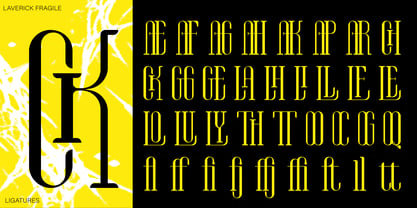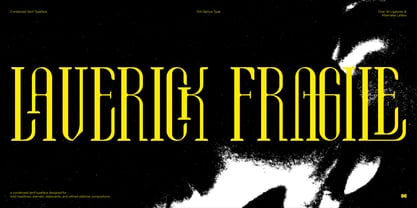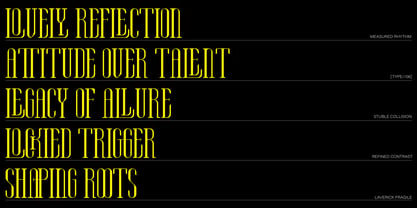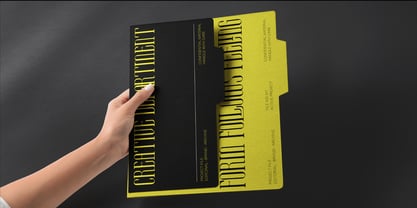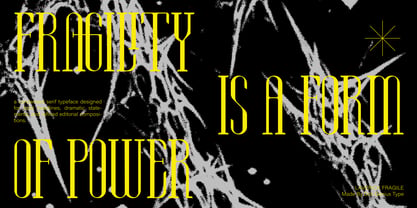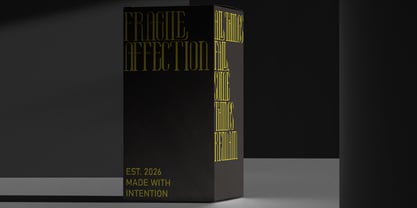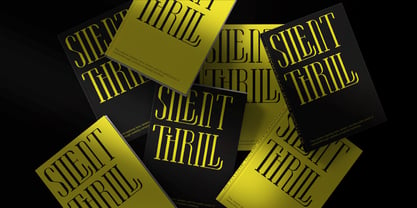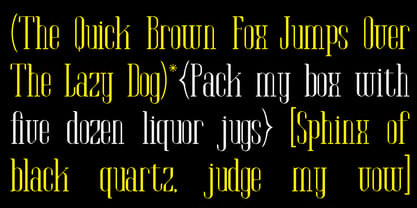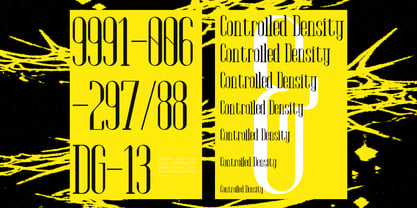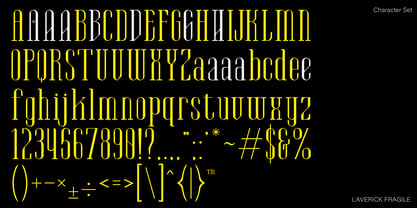
Laverick Fragile
von DG Typeworks Studio
Die Schriftfamilie Laverick Fragile wurde von Asrul Yusuf entworfen und von DG Typeworks Studio veröffentlicht. Laverick Fragile enthält 2 Stile und Familienpaketoptionen. Mehr über diese Familie
Laverick Fragile is a condensed serif typeface designed to balance elegance and tension. With tall proportions, sharp terminals, and refined contrast, this typeface delivers a strong editorial presence while maintaining a delicate visual rhythm. Built for display use, Laverick Fragile performs best in headlines, posters, book covers, fashion branding, and high-impact layouts. Its narrow structure allows dense compositions without sacrificing clarity, making it suitable for modern editorial systems and sophisticated branding applications. The typeface includes over 30 custom ligatures and alternate letterforms, carefully crafted to enhance flow, character interaction, and typographic expression. Each ligature is designed to feel natural within words, adding subtle visual interest without disrupting readability. Laverick Fragile supports basic Latin characters and is optimized for large-scale use, where its distinctive serif details and vertical tension can be fully appreciated.